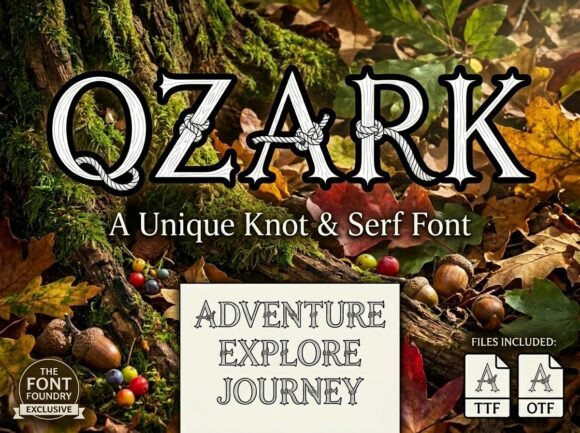
Introduction to Ozark Font
Imagine you’re working on a creative project, and you’re struggling to find the perfect font to make your design truly pop. You’ve tried countless free downloads and high-quality design resources, but nothing seems to capture the essence of your vision. That’s where the Ozark Font comes in – a stunning decorative display font designed to be the center of attention.
As a designer, you’re always on the lookout for unique and versatile fonts that can elevate your work and help you stand out from the crowd. The Ozark Font delivers, with its bold and artistic elements that are perfect for bold headlines, creative packaging, and professional logos. With its transparent background and professional finish, this font is a valuable addition to any design arsenal.
Whether you’re working on a high-impact campaign or a personal creative project, the Ozark Font is sure to make a lasting impression. So why settle for ordinary when you can have extraordinary? Dive into the world of the Ozark Font and discover a new level of creative freedom.
Ozark Font
- Unique, hand-drawn design with a natural, earthy feel, perfect for creative projects.
- Includes a wide range of characters, including uppercase and lowercase letters, numbers, and punctuation.
- Designed to be versatile, making it an excellent design resource for various creative projects.
- High-quality design, ideal for use in logos, typography, and other design elements where a unique, natural look is desired.
Honest Review: Ozark Font
I recently had the chance to work with the Ozark Font, and I’m excited to share my honest thoughts on this design resource. As a designer, I’m always on the lookout for high-quality fonts that can elevate my creative projects.
The Ozark Font has a lot to offer. ✨ One of its standout features is its versatility – it’s perfect for use in a variety of contexts, from branding to editorial design. The font is also incredibly easy to use, with a transparent background that makes it seamless to integrate into any design.
- High-quality design that’s perfect for a range of creative projects
However, there are a few limitations to consider ⚠️. The font may not be suitable for all types of design, particularly those that require a more formal or traditional aesthetic. Additionally, the font may require some customization to get the perfect look.
Overall, I’m impressed with the Ozark Font. It’s a great addition to any designer’s toolkit, and I’m excited to see how it can be used in future creative projects.